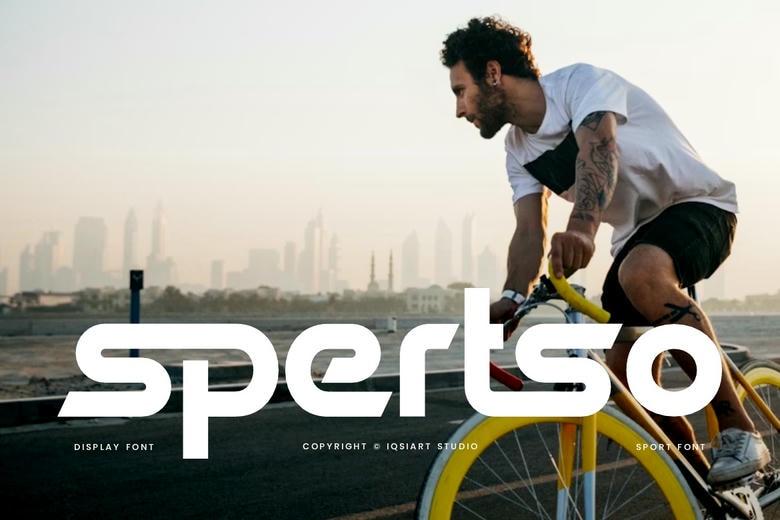
Spertso Font
Spertso Font is a bold and authentic display typeface that works well for many design projects. We have a wide range of themes and font styles. Visit our profile to see more and find the right style for your project.
Spertso Sans Serif Font